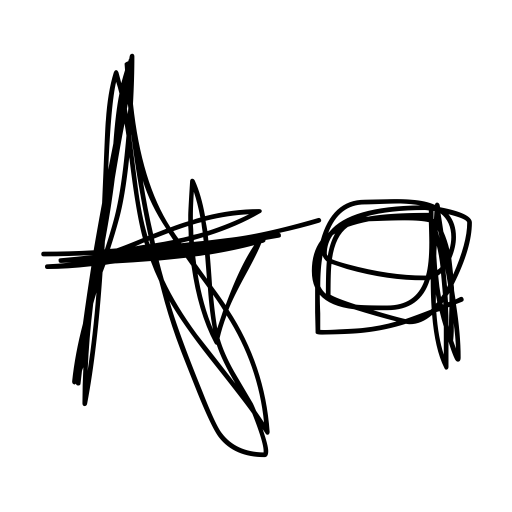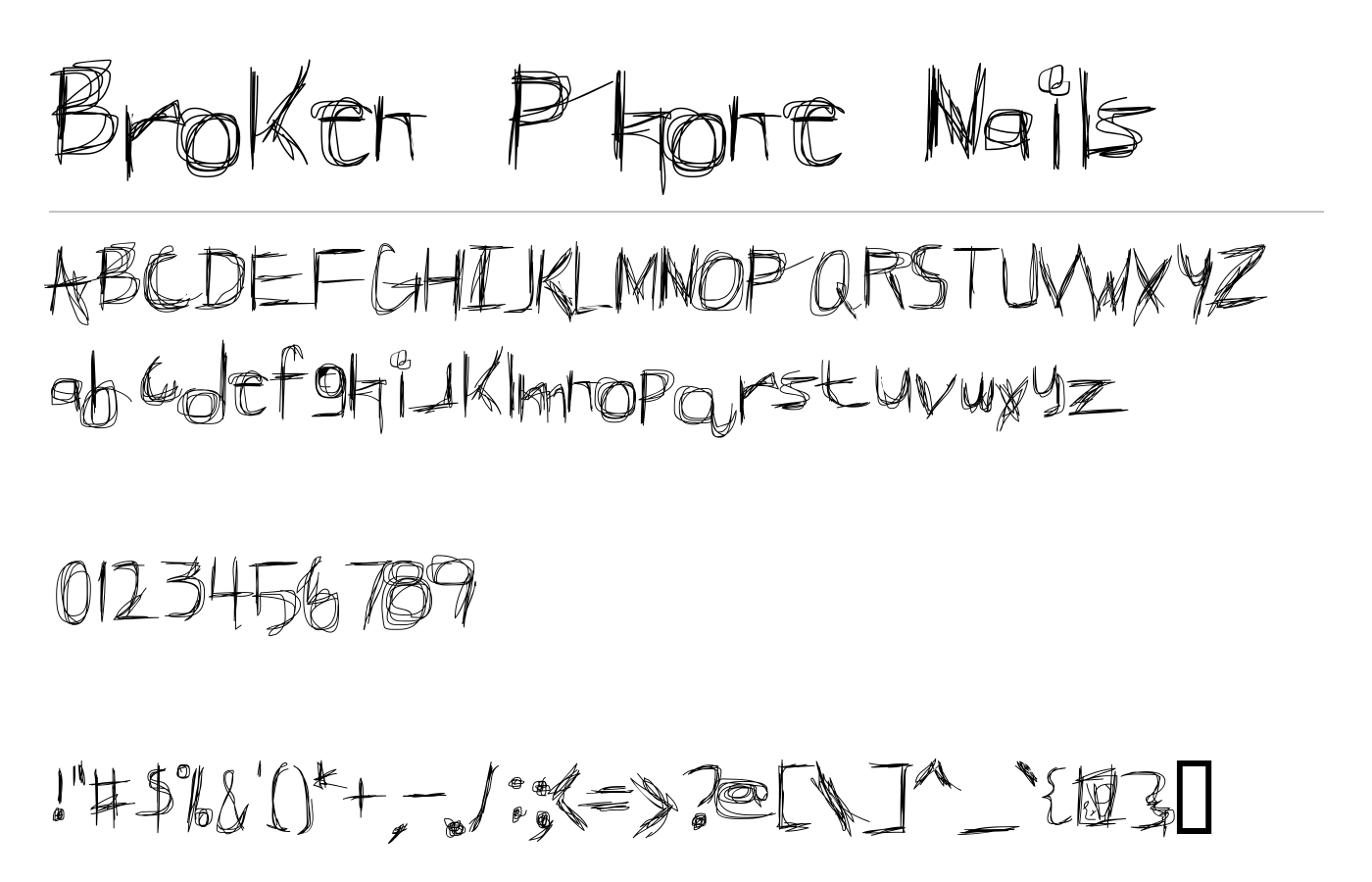
Broken Phone Nails is a unique, hand-drawn sans serif font with a chaotic, sketch-like appearance that mimics hurried, overlapping lines. Its irregular, thin strokes and rough edges give it an edgy, raw, and grungy feel, making it perfect for designs that want to convey creativity, rebellion, or an informal and artistic vibe. This font works best in expressive headlines, posters, or alternative branding where a distinctive, unconventional look is desired.
Broken Phone Nails Font
About Broken Phone Nails Font